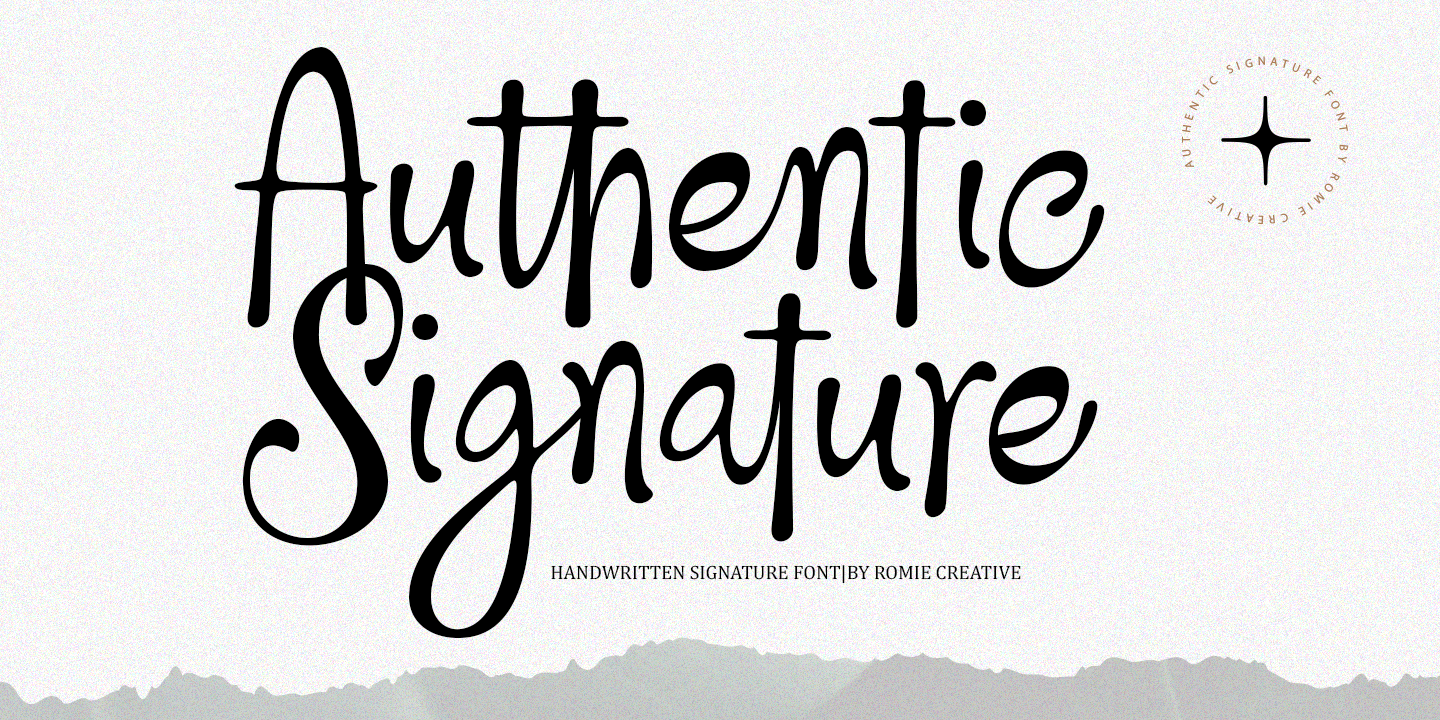
Authentic Signature Font is perfect for personal branding materials, luxury product packaging, handwritten-style invitations, artisan business logos, boutique store signage, custom certificate designs, premium greeting cards, elegant restaurant branding, personalized stationery collections, and sophisticated calligraphy-inspired marketing campaigns.
What makes Authentic Signature Font so exciting is its remarkable ability to replicate the intimate, personal touch of genuine handwritten signatures through meticulously crafted letterforms that flow with natural human rhythm and spontaneous elegance. This font captures the essence of personal authenticity and individual expression, featuring graceful characters that appear to have been written by a skilled calligrapher's hand in one fluid, confident motion. The organic letter shapes create an atmosphere of exclusivity and personal connection, making every word feel like a cherished, handwritten note from someone special.
The Authentic Signature Font family includes Regular, Bold, Light, Script, and Flourish variations, along with decorative swashes and alternative character endings. Each style maintains the font's distinctive handwritten character while offering flexibility for different personal branding applications, from subtle signature elements to bold statement pieces that demand personal recognition.
This captivating typeface brings genuine human warmth to contemporary design projects. The Authentic Signature Font Free Download provides designers with an invaluable tool to create memorable brand identities that communicate personality, craftsmanship, and individual attention to detail. Whether you're developing personal brand materials, designing boutique product packaging, or creating luxury service communications, this font delivers unmatched authenticity and emotional connection.
The expertly designed letterforms in Authentic Signature Font feature natural variations, flowing connections, and spontaneous flourishes that mirror the organic beauty of actual handwriting created with premium fountain pens. Each character has been carefully crafted to maintain perfect legibility while preserving the unique imperfections that make handwritten text so personally appealing. The font's distinctive personality makes it ideal for applications requiring genuine human touch and artisanal quality.
Luxury brand professionals value how Authentic Signature Font instantly establishes personal credibility and premium positioning without appearing manufactured or artificial. The comprehensive character set includes elegant ligatures, decorative elements, stylistic alternates, and international language support, ensuring versatility across diverse personal branding applications. This makes it an essential resource for entrepreneurs, luxury service providers, artisan craftspeople, and any professional seeking typography that embodies the irreplaceable value of authentic human creativity and personal excellence.